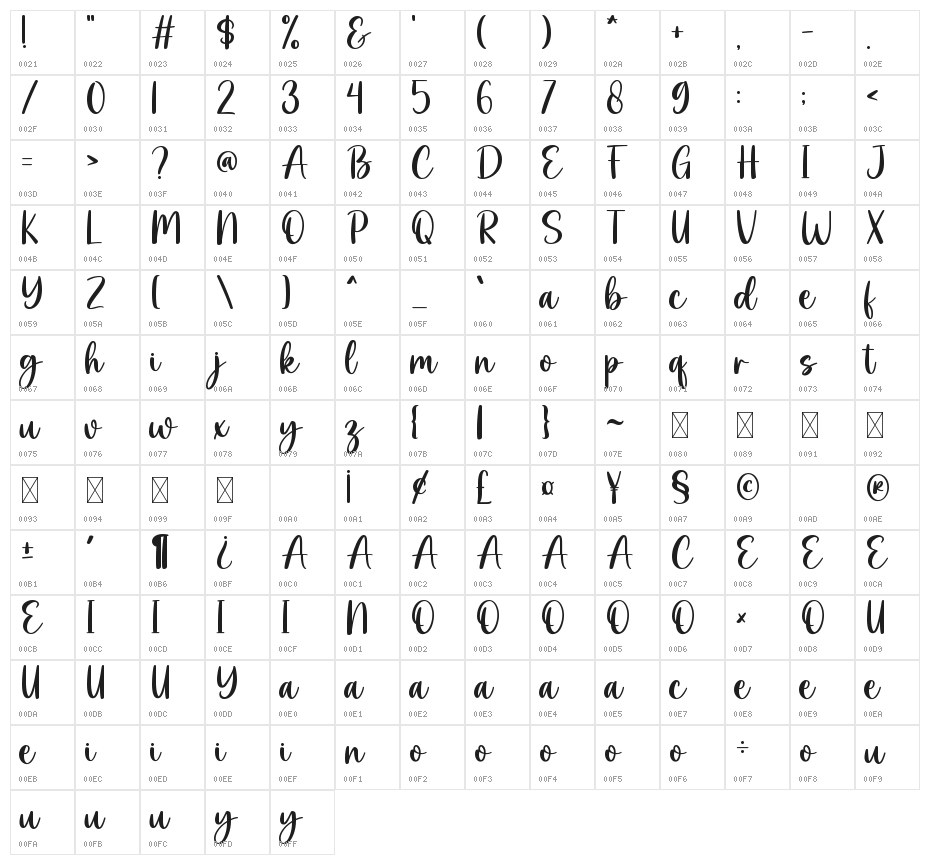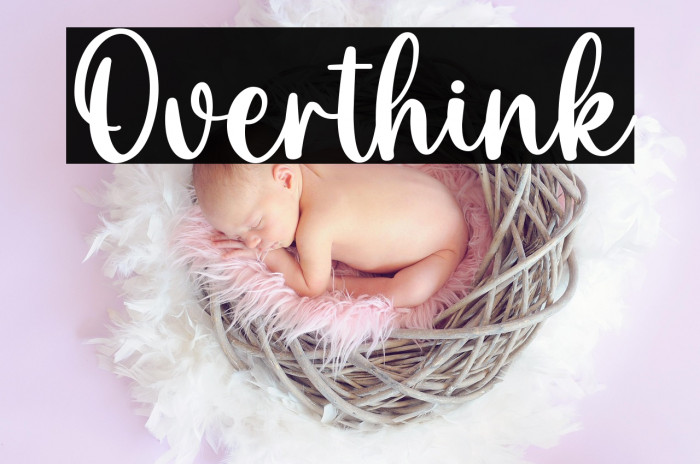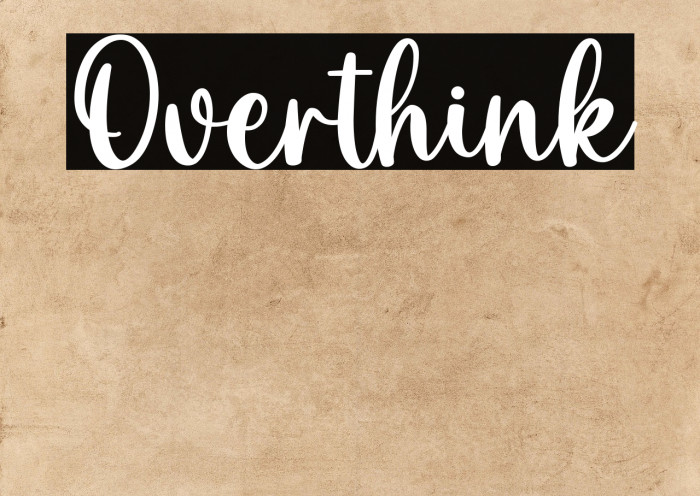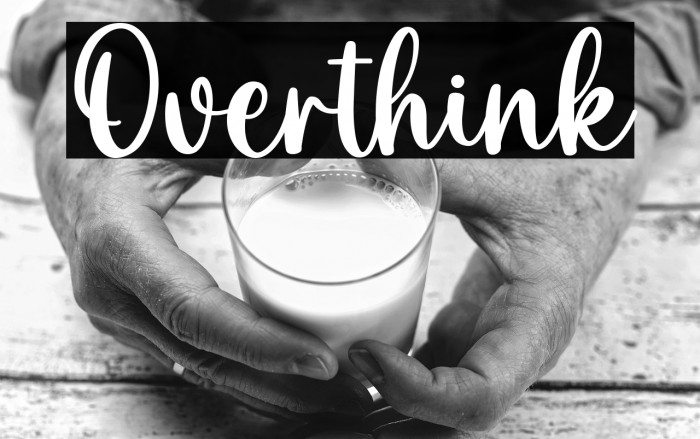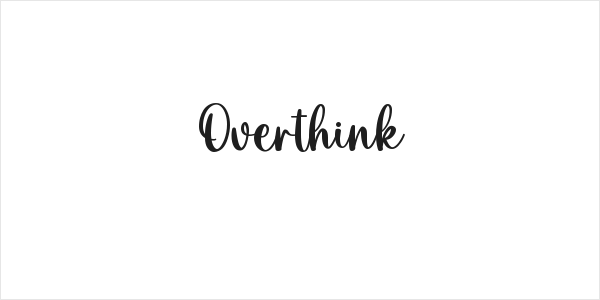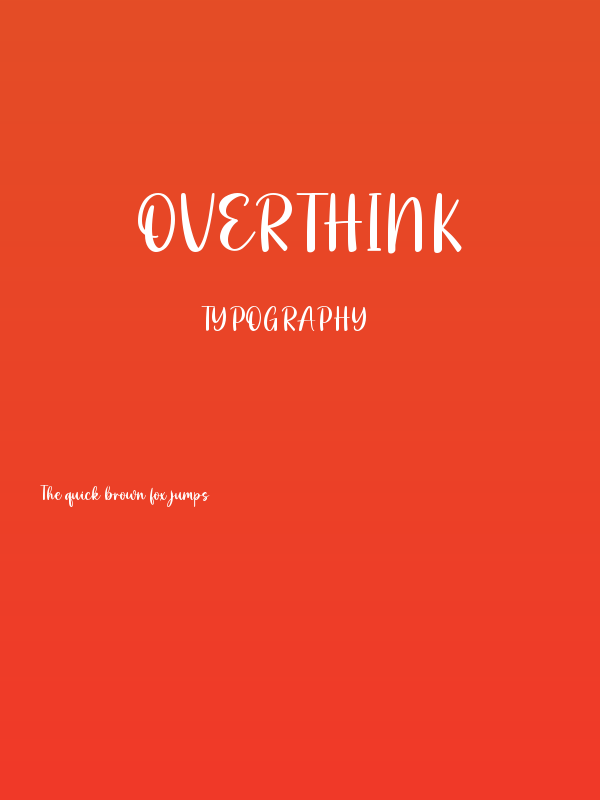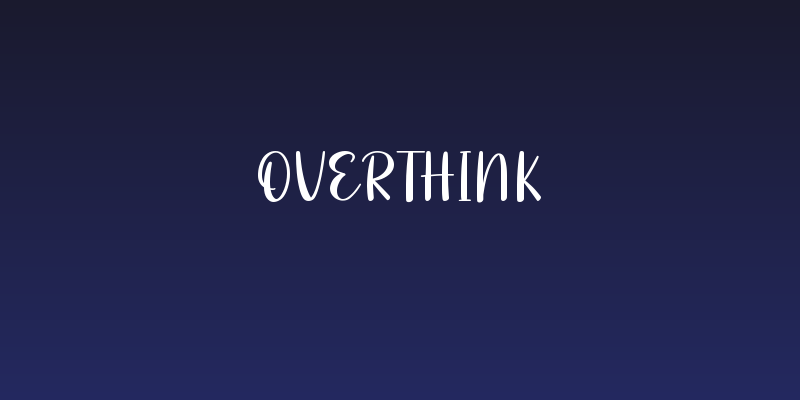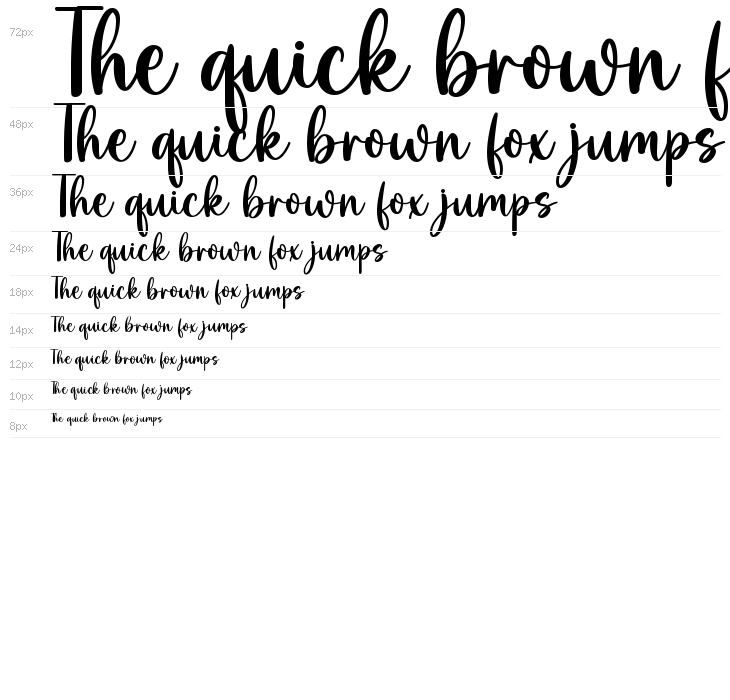
Overthink Font
Overthink Description
A playful, modern handwritten script with smooth, flowing curves and a casual, friendly appearance. The strokes are moderately thick, with a consistent weight and rounded terminals, giving it an approachable and lively feel.
| Overall Style | Modern, Playful, Casual |
| Use Case | Logos, Headlines, Invitations, Social media graphics |
| Proposed Projects | Greeting cards, invitations, social media graphics, branding, quotes, posters. |